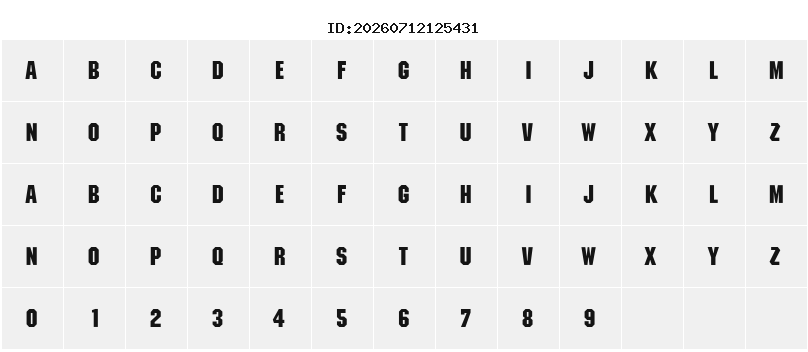
Machine-Light Preview
• Font Name: Machine-Light
• Full Font Name: Machine-Light
• PostScript Name: Machine-Light
About Machine-Light.ttf
Machine-Light.ttf is a modern, elegant sans-serif font designed for ultimate readability and visual harmony. Perfect for branding, headlines, web design, and print materials.